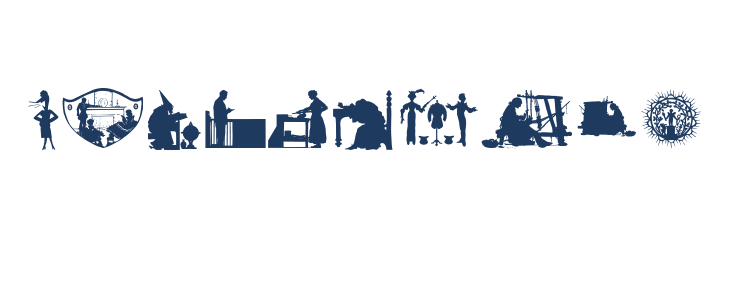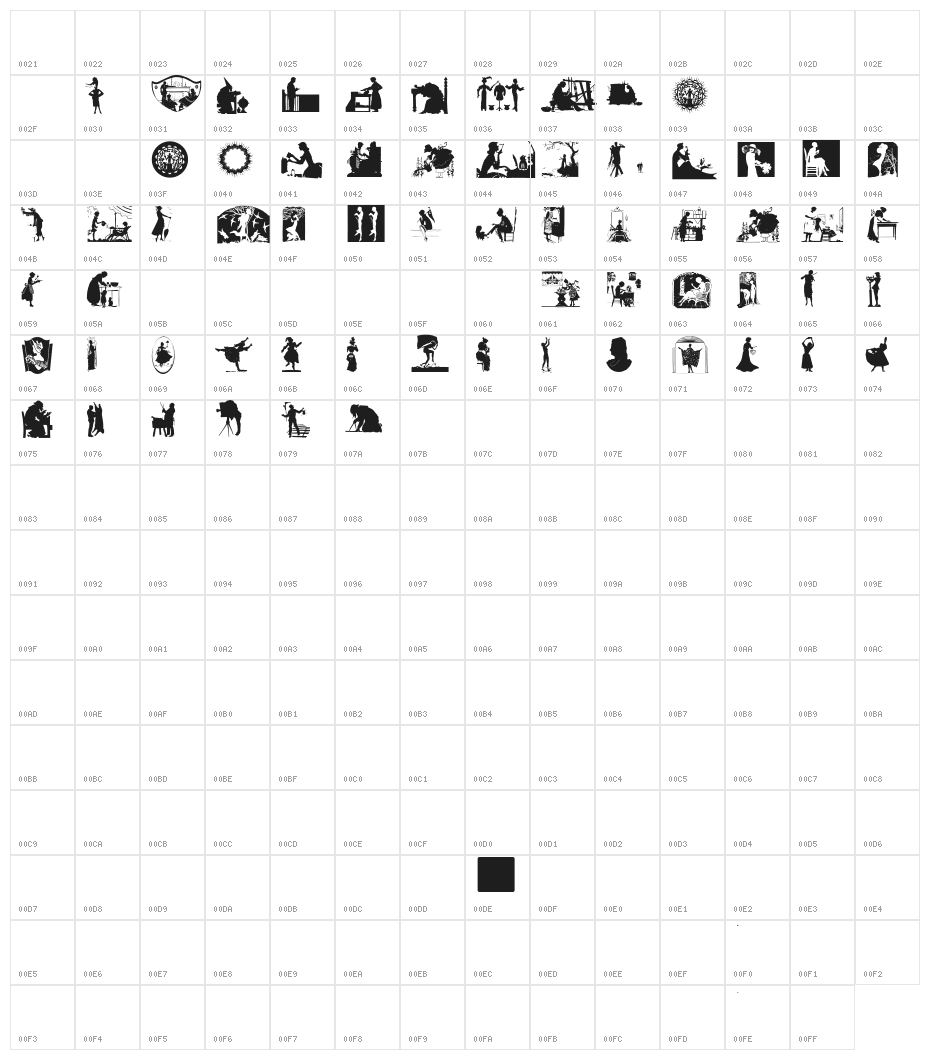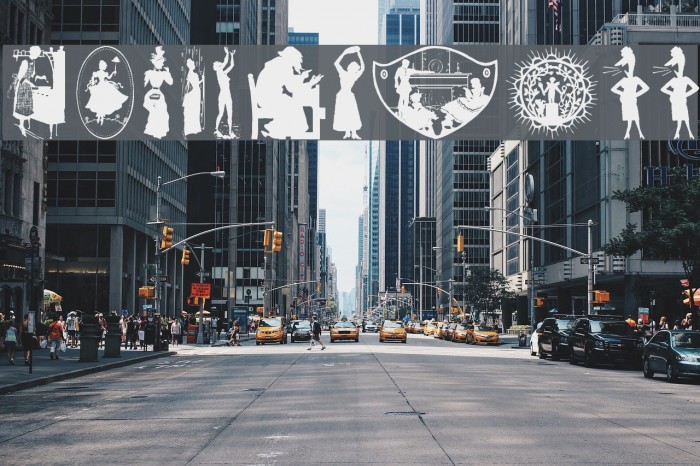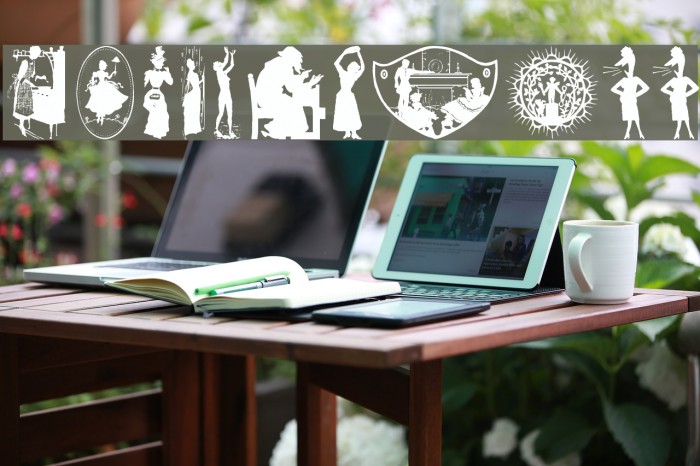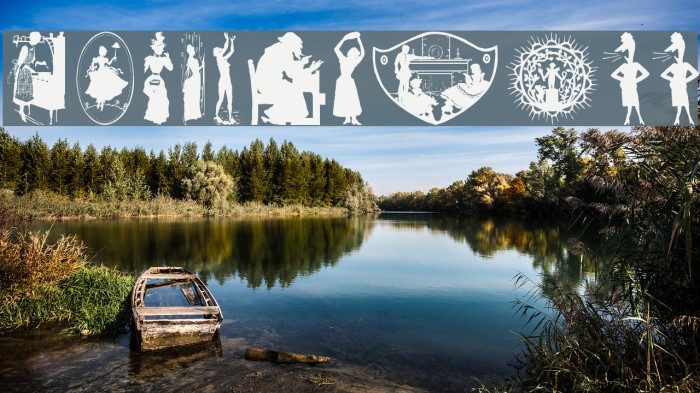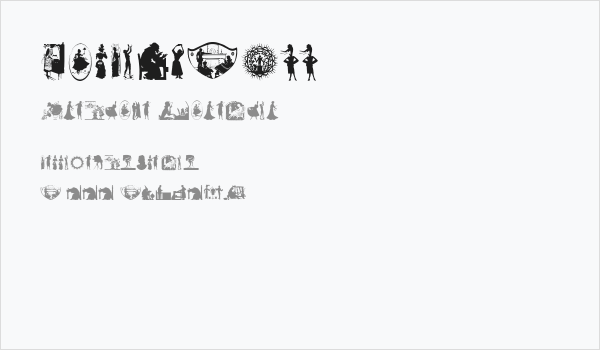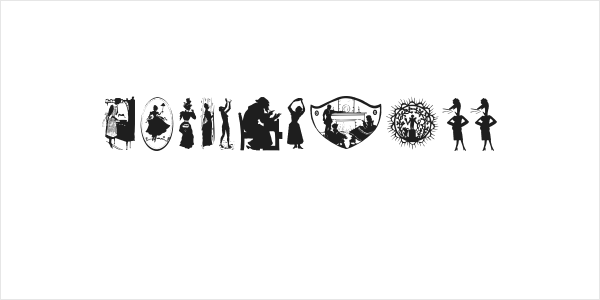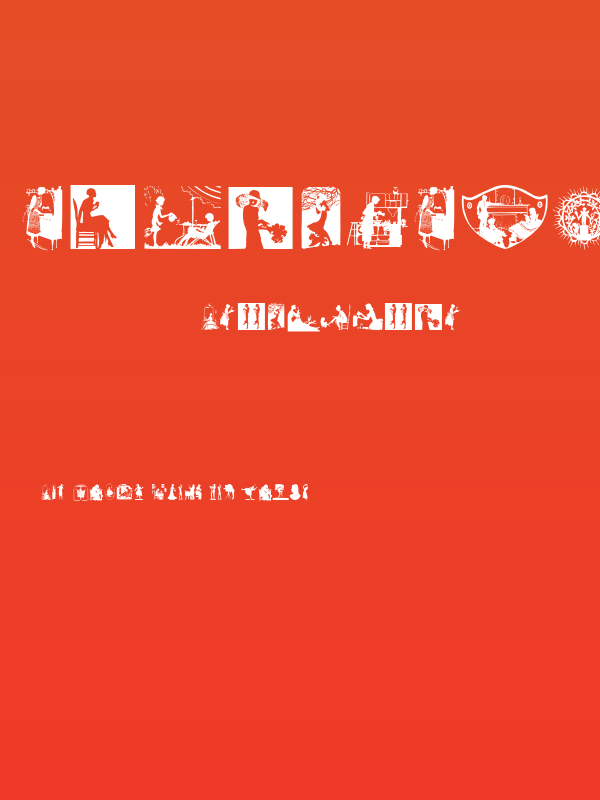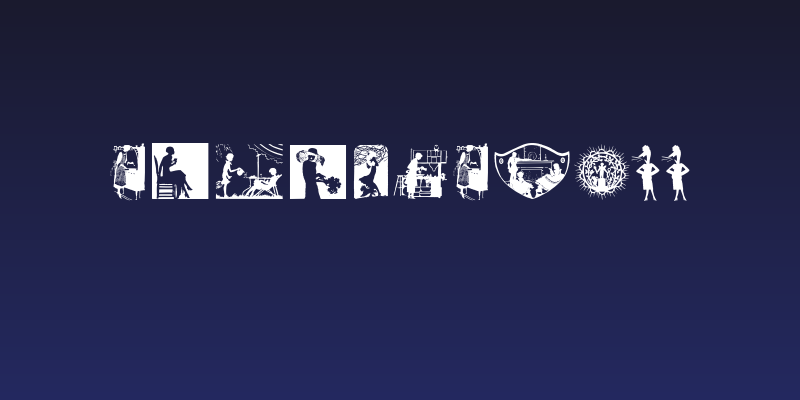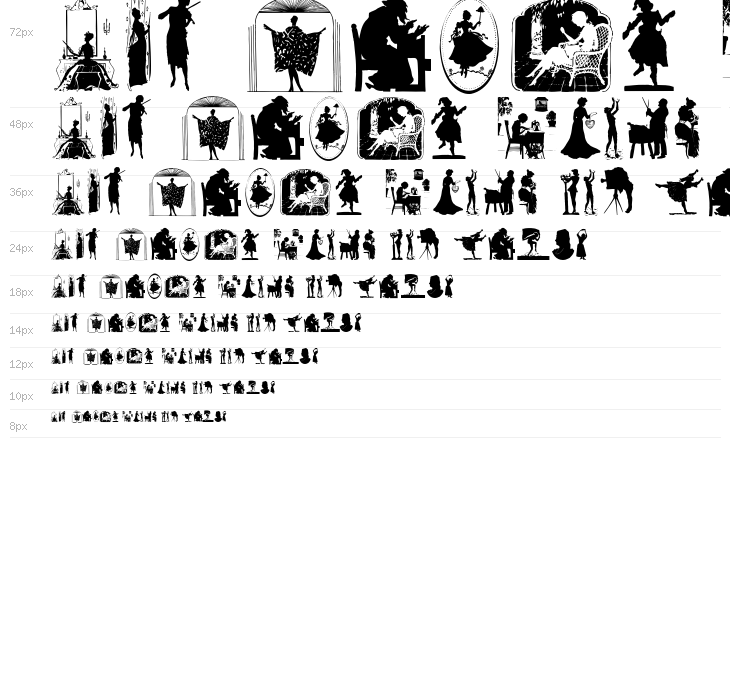
Silhous1900 Font
Silhous1900 Description
A decorative display font composed of intricate black silhouette illustrations depicting people, scenes, and objects in a vintage style reminiscent of early 20th-century art. Each character is represented by a unique, detailed vignette rather than a traditional letterform.
| Overall Style | Vintage, Decorative |
| Use Case | Logos, Headlines, Artistic projects, Themed graphics |
| Proposed Projects | Book covers, posters, invitations, themed event materials, artistic branding. |